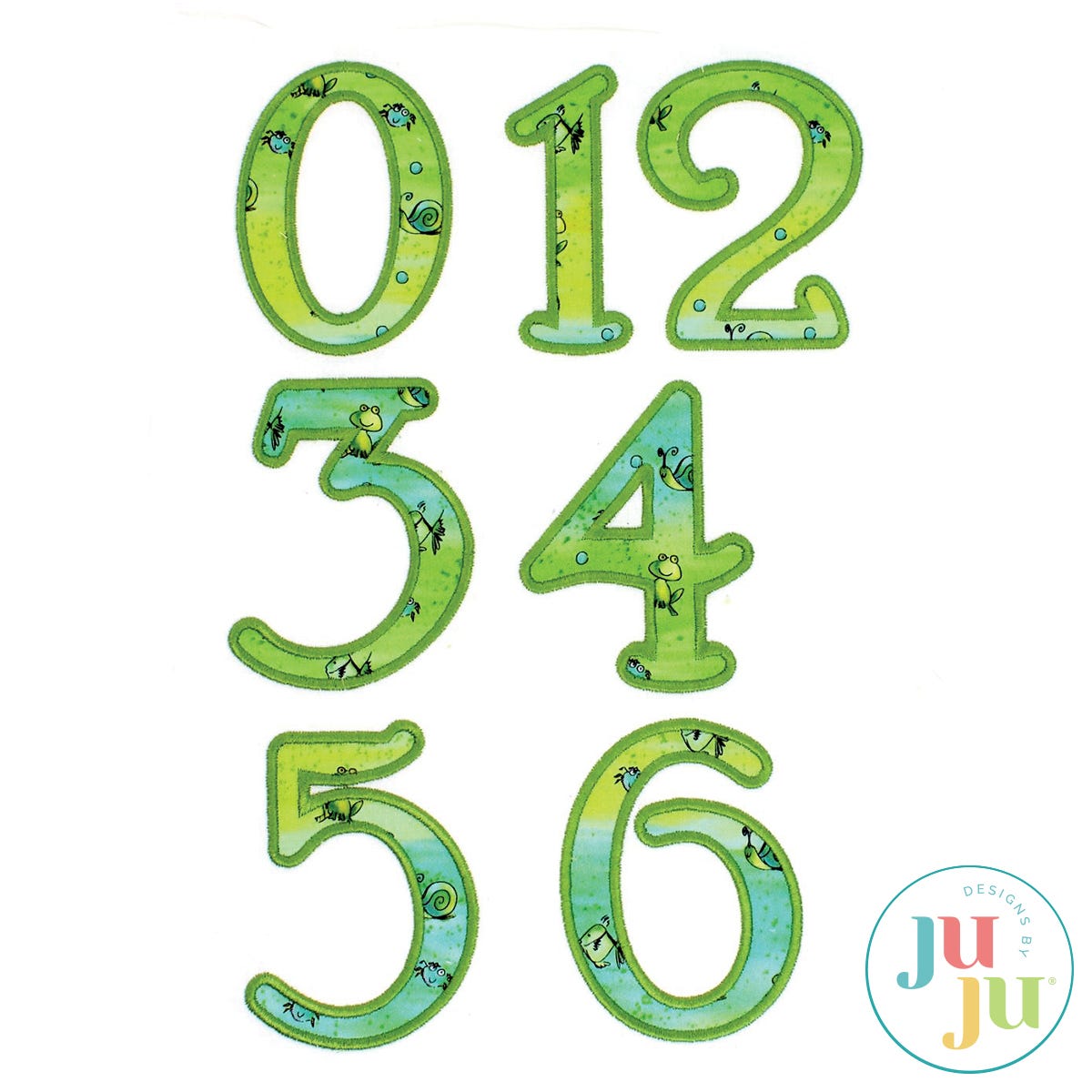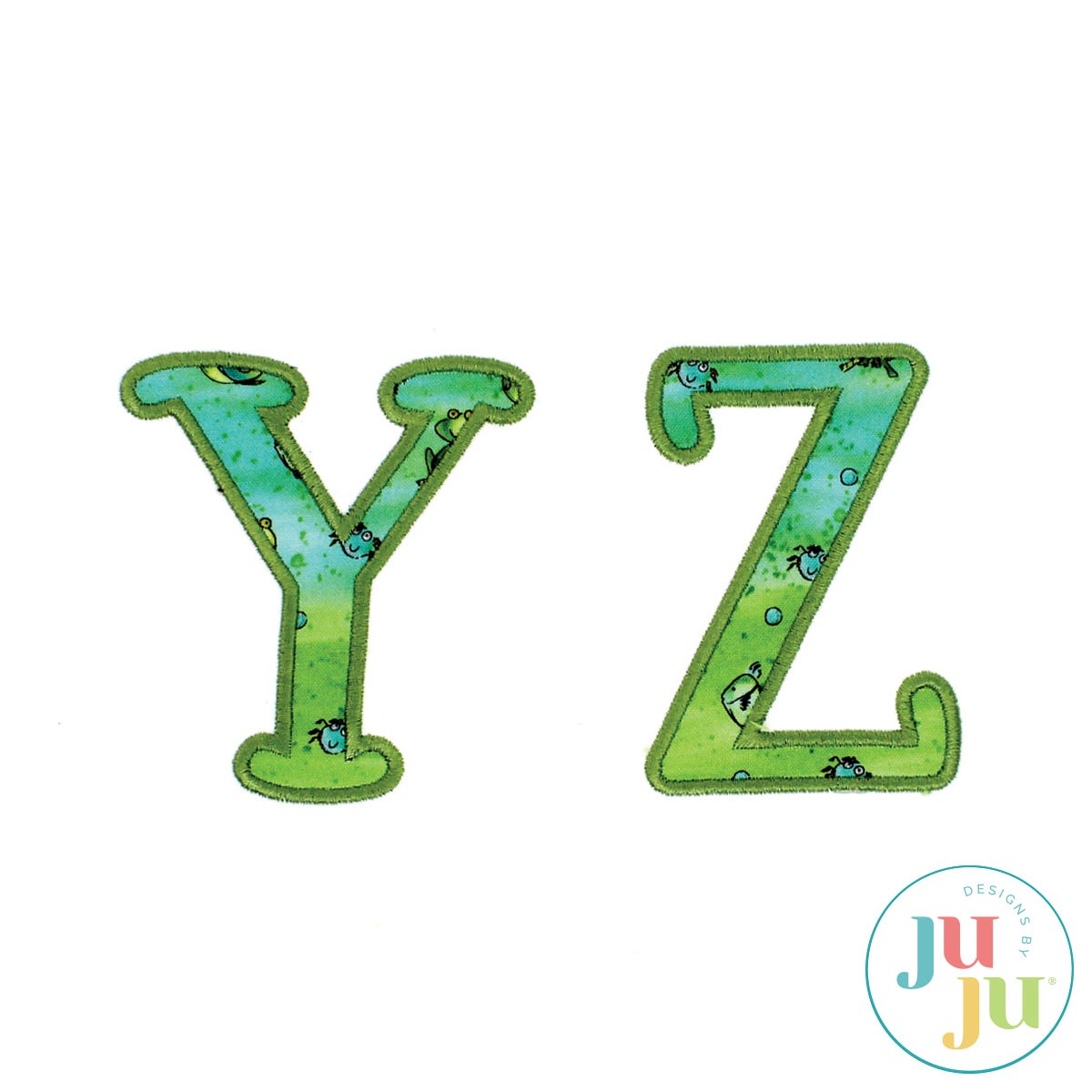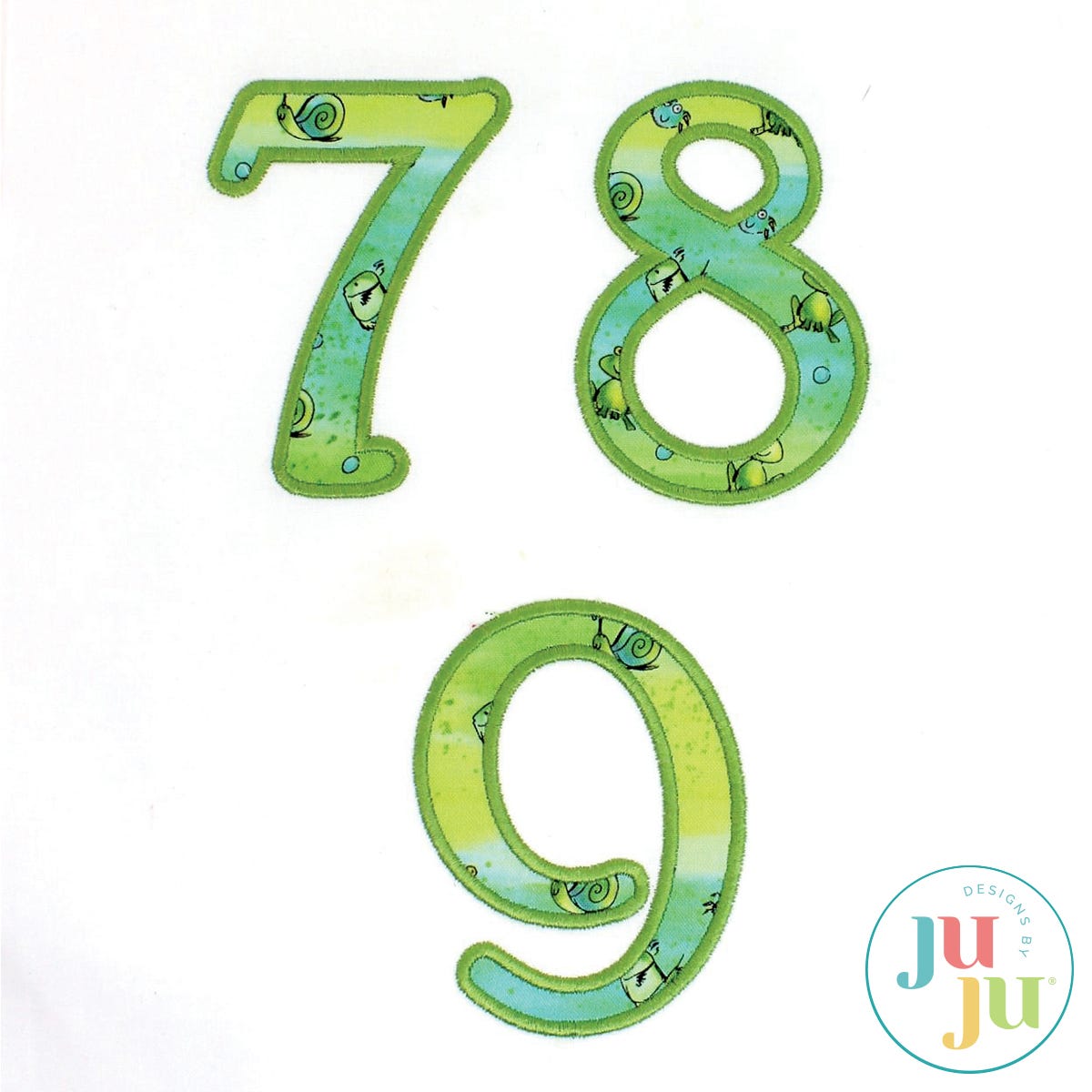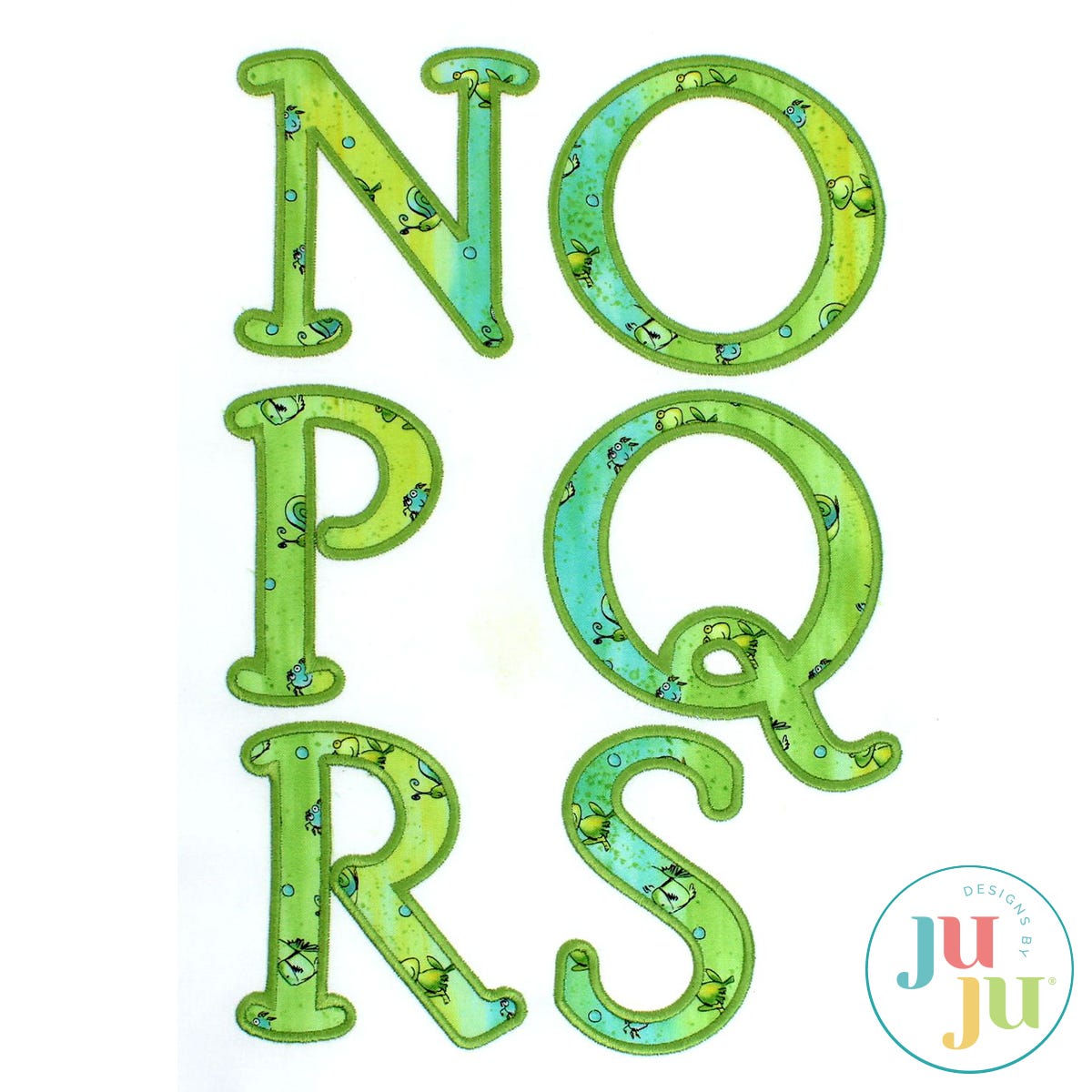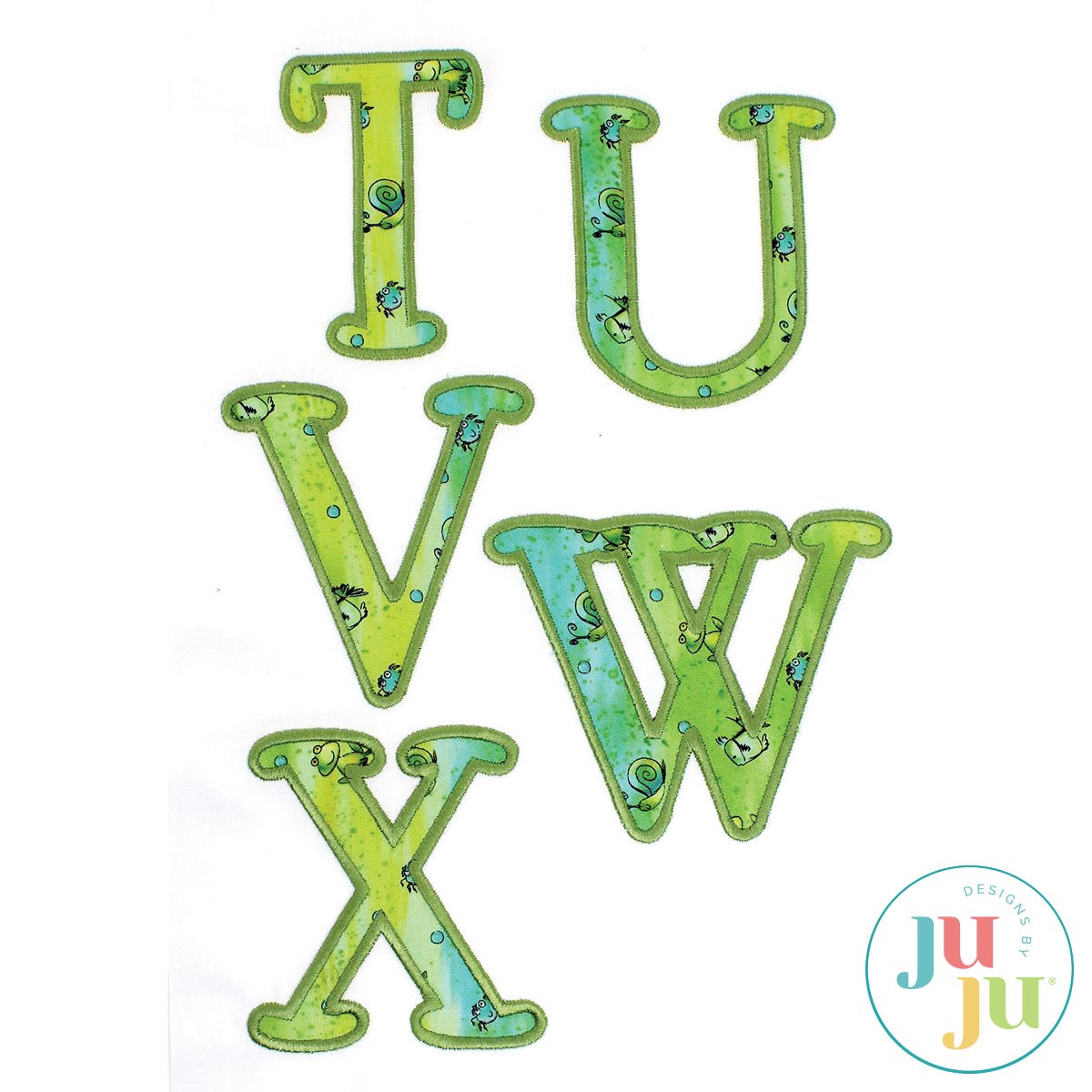
Hobby Horse Satin Stitch Applique Embroidery Font by Oma's Place
This font is perfect for children's pillows, towels, clothing, blankets, totes etc. Perfect for using up those scraps of fabric you have been collecting.
There are 26 capital letters and 10 number designs in your download. The letters and numbers are approximately 3.5-3.8" tall and all fit into the 4x4 hoops. The projects shown in the photos are not part of your purchase but only serve as samples of what can be done with this font.